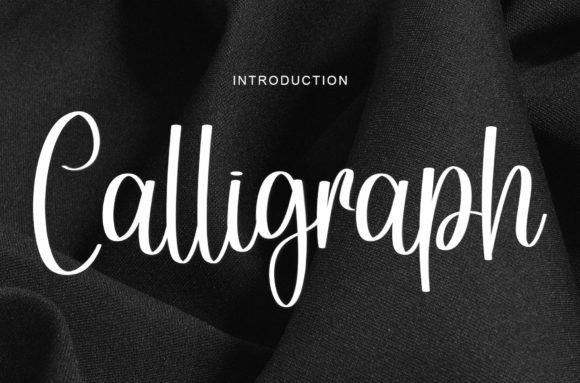
The Magic of Calligraph Font: Elevate Your Designs with Elegance
I still remember the time I was working on a wedding invitation project, and my client asked for a font that would make their special day feel like a fairytale. I scoured the internet, tried countless fonts, but nothing seemed quite right. That was until I stumbled upon Calligraph Font. ✨ This enchanting handwritten font has been a game-changer for me ever since, and I’m excited to share its beauty with you.
A Versatile Script Font for Every Project
Calligraph Font is a versatile script font that can add a romantic feel to any project. Its elegant strokes and flowing lines make it perfect for a wide range of applications, from greeting cards and wedding invitations to headlines and branding. Whether you’re a designer, crafter, or creative hobbyist, this font is sure to become a favorite in your collection.
- ✨ Elegant and refined strokes that add a touch of sophistication to any design
- 🎨 Versatile and adaptable to various design styles and themes
- 💻 Works beautifully on both digital and print platforms
While Calligraph Font is an amazing addition to any design project, there are a few things to keep in mind: 🤔
- ⚠️ Some letters may require manual kerning for optimal spacing
- ⚠️ May not be suitable for very long blocks of text, as it can be a bit ornate
The Designer Inspiration Behind Calligraph Font
Calligraph Font was inspired by the art of traditional calligraphy. Its creator sought to capture the elegance and sophistication of handwritten calligraphy and make it accessible to designers and crafters around the world. The result is a font that’s both beautiful and versatile, perfect for adding a touch of romance to any design project.
Q: Is Calligraph Font suitable for body text?
A: While Calligraph Font is highly legible, it’s best suited for shorter blocks of text, such as headlines, titles, and captions. For longer blocks of text, a more traditional serif or sans-serif font may be more suitable.
Q: Does Calligraph Font come with OpenType features?
A: Yes, Calligraph Font includes OpenType features, such as ligatures, stylistic alternates, and glyphs, which can be accessed in compatible design software.
Q: Is Calligraph Font available in different weights or styles?
A: Currently, Calligraph Font is available in a single weight, but its versatility and elegance make it suitable for a wide range of design applications.